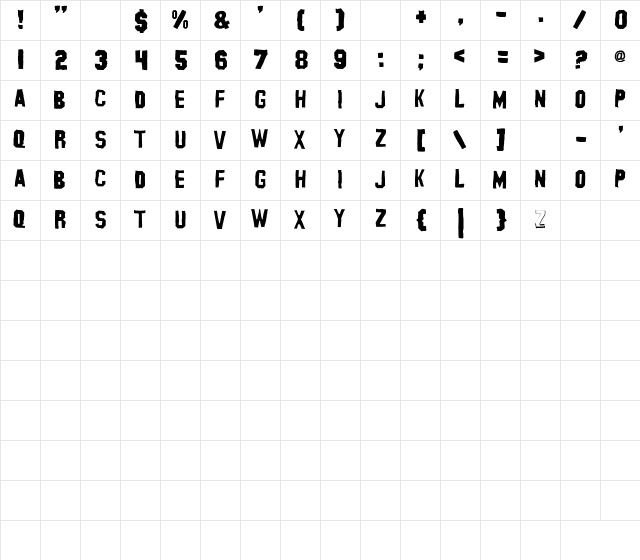
Complete -banhart- ver : 003 Regular glyph index. Displaying only characters natively supported by -banhart- ver : 003 Regular font.
-banhart- ver : 003 is a composed and adaptable typeface that performs quietly and consistently across a wide range of design contexts.
Who designed the -banhart- ver : 003 Regular font?